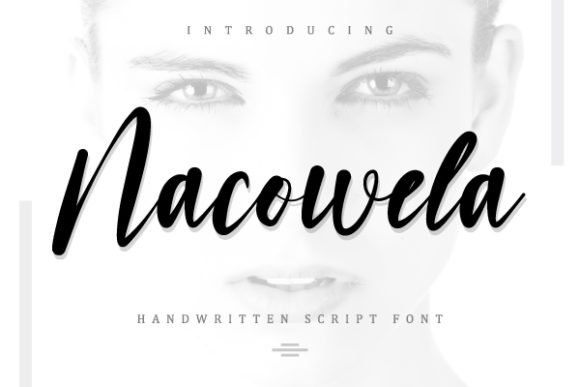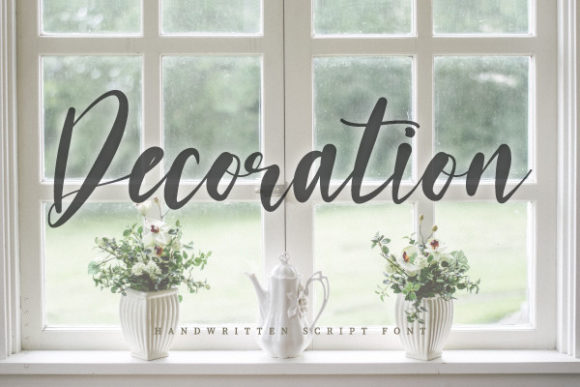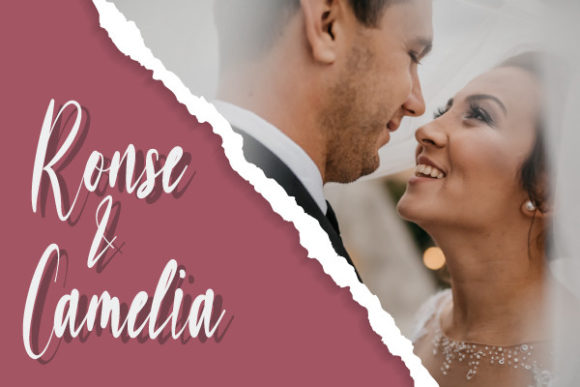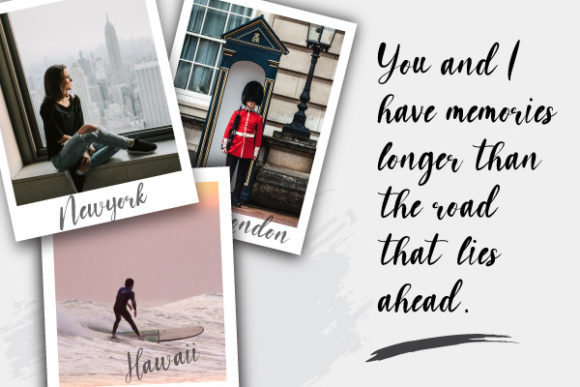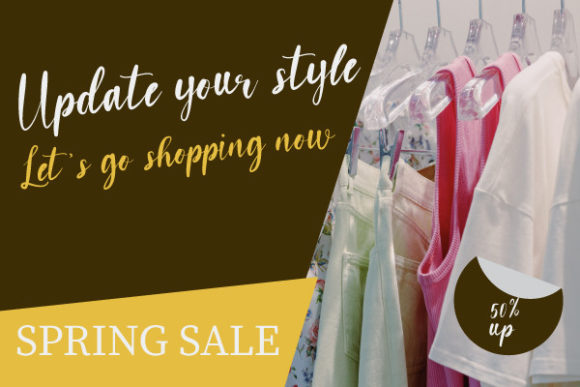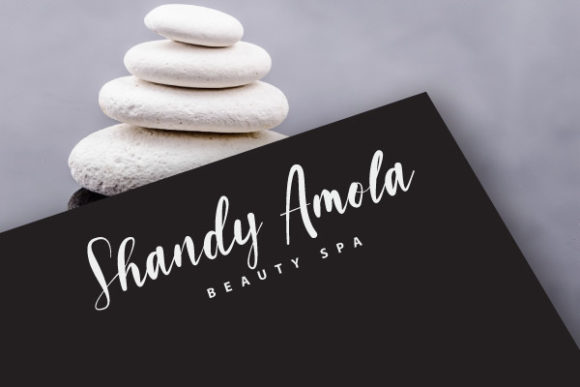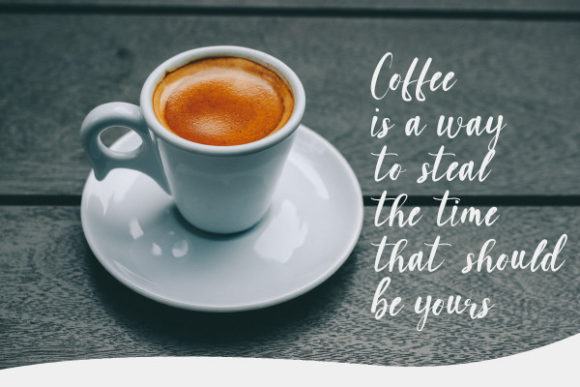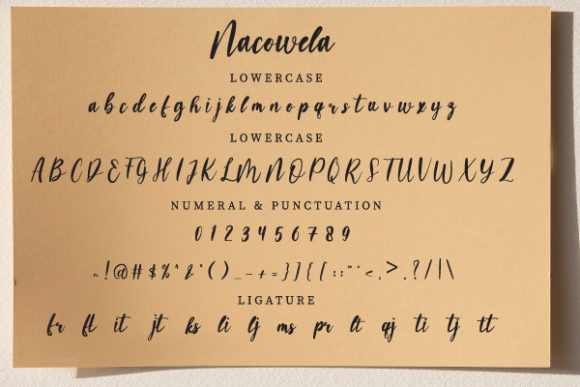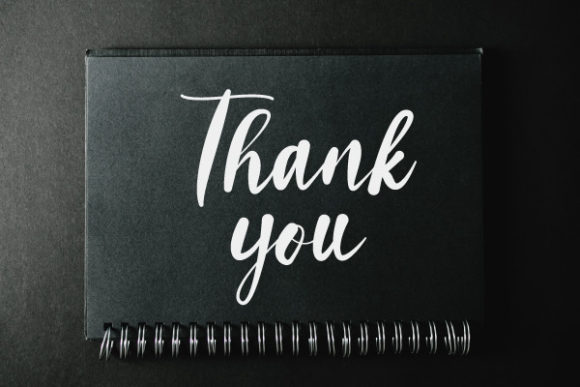
Nacowela Font
About Nacowela Font
Nacowela is a romantic and sweet handwritten typeface with an elegant character. This will add a touch of elegance to any design project you want to create! It’s perfect for creating gorgeous wedding invitations, beautiful stationary art, eye-catching social media posts, and more!